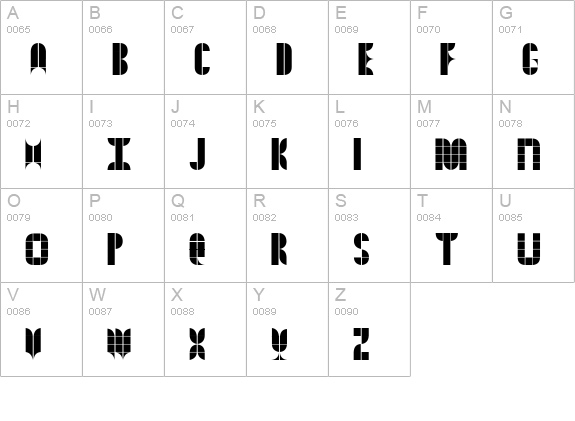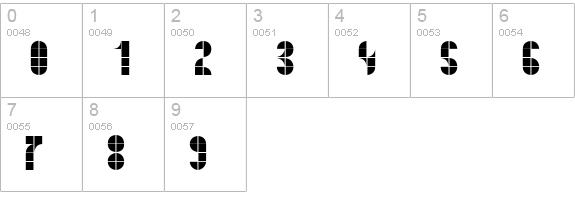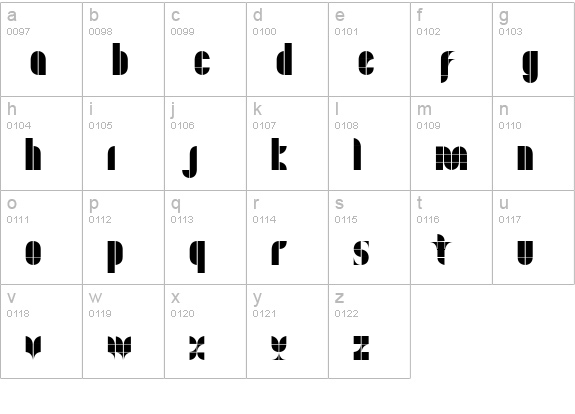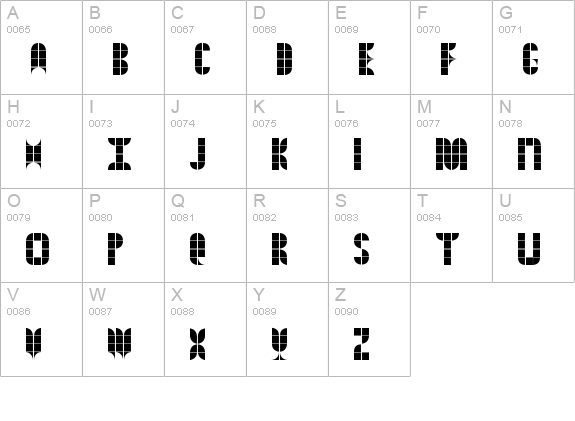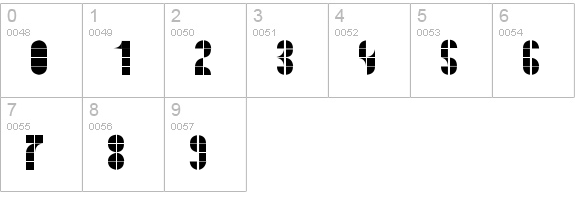
Kitchen Tiles Font Details
Introducing Kitchen Tiles, a stunningly versatile font that will effortlessly elevate any culinary-related project. With its clean lines and modern aesthetic, this font captures the essence of a contemporary kitchen, combining elegance and functionality in perfect harmony. Kitchen Tiles is not only visually appealing, but it also provides unparalleled legibility, making it an ideal choice for a wide range of applications. Whether you're designing a cookbook, a menu, or a food blog, this font will bring your words to life, captivating your audience and leaving a lasting impression. What sets Kitchen Tiles apart is its remarkable versatility. This font seamlessly blends in with a variety of design styles, from minimalist and clean to bold and eye-catching. Its simple yet refined letterforms exude sophistication, while its subtle accents add a touch of personality and charm. The best part? Kitchen Tiles is available for free download exclusively at FontsMarket.com. We believe that great design should be accessible to all, and that's why we've made this exceptional font freely available to everyone. Now, you can elevate your culinary creations without breaking the bank, bringing a touch of elegance to your kitchen-inspired projects. Whether you're a professional designer, a home chef, or a food enthusiast looking to add a touch of flair to your creations, Kitchen Tiles is the perfect choice. Download this exquisite font today and embark on a journey of culinary creativity like never before.